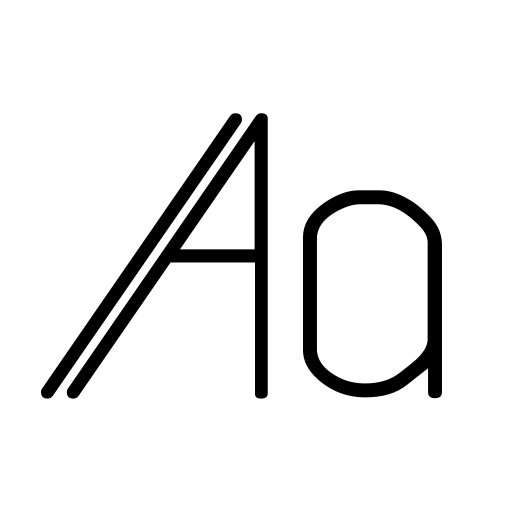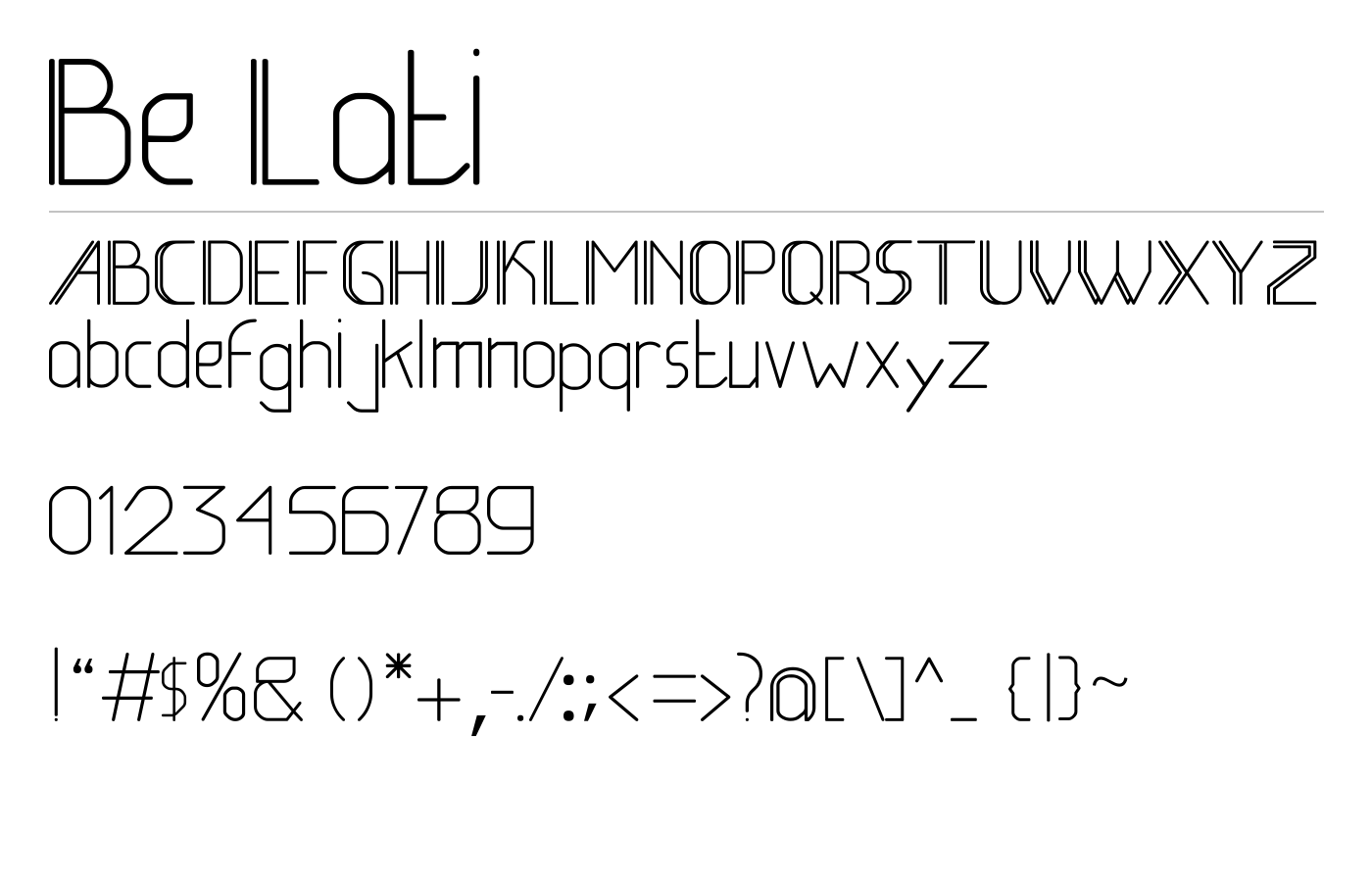
Be Lati is a sleek, modern sans serif font characterized by its thin, geometric lines and high x-height, giving it a clean and elongated appearance. Its unique letterforms, including stylized terminals and delicate strokes, lend it a futuristic yet elegant feel, making it ideal for contemporary branding, tech-inspired projects, and creative editorial designs that seek a refined, minimalist look.
Be Lati Font
About Be Lati Font